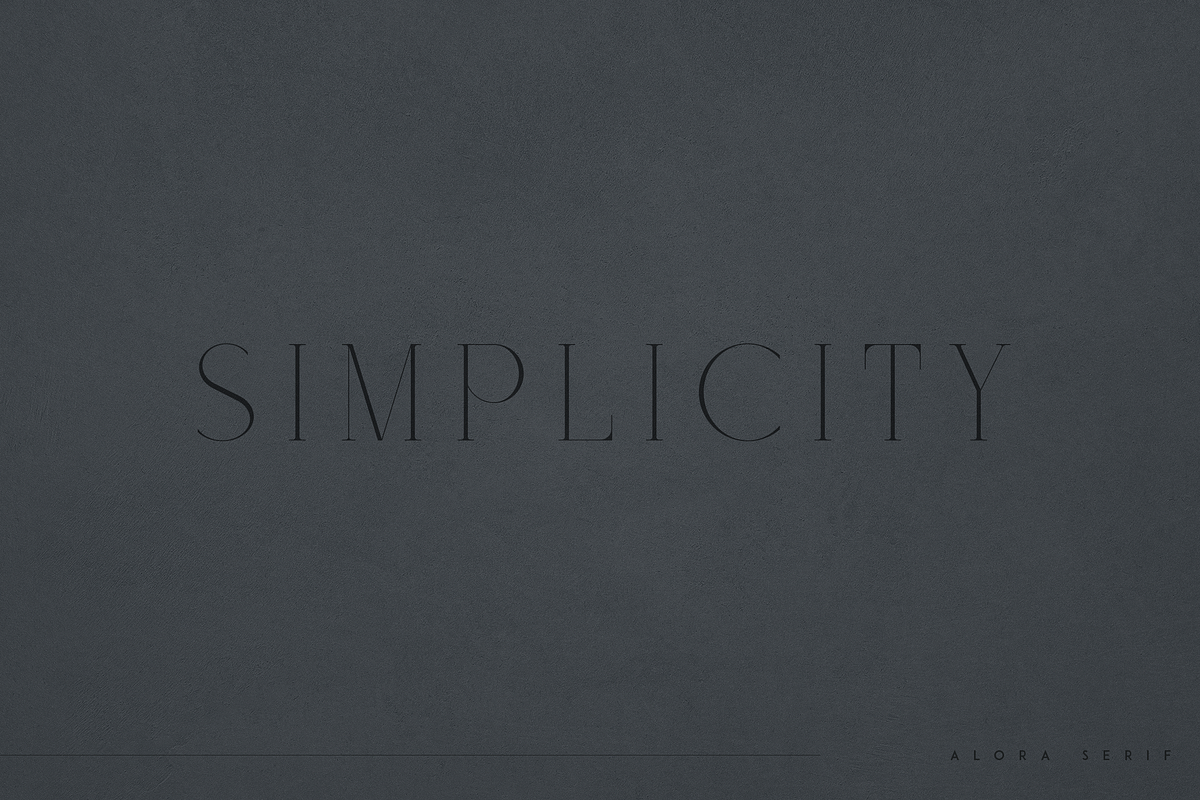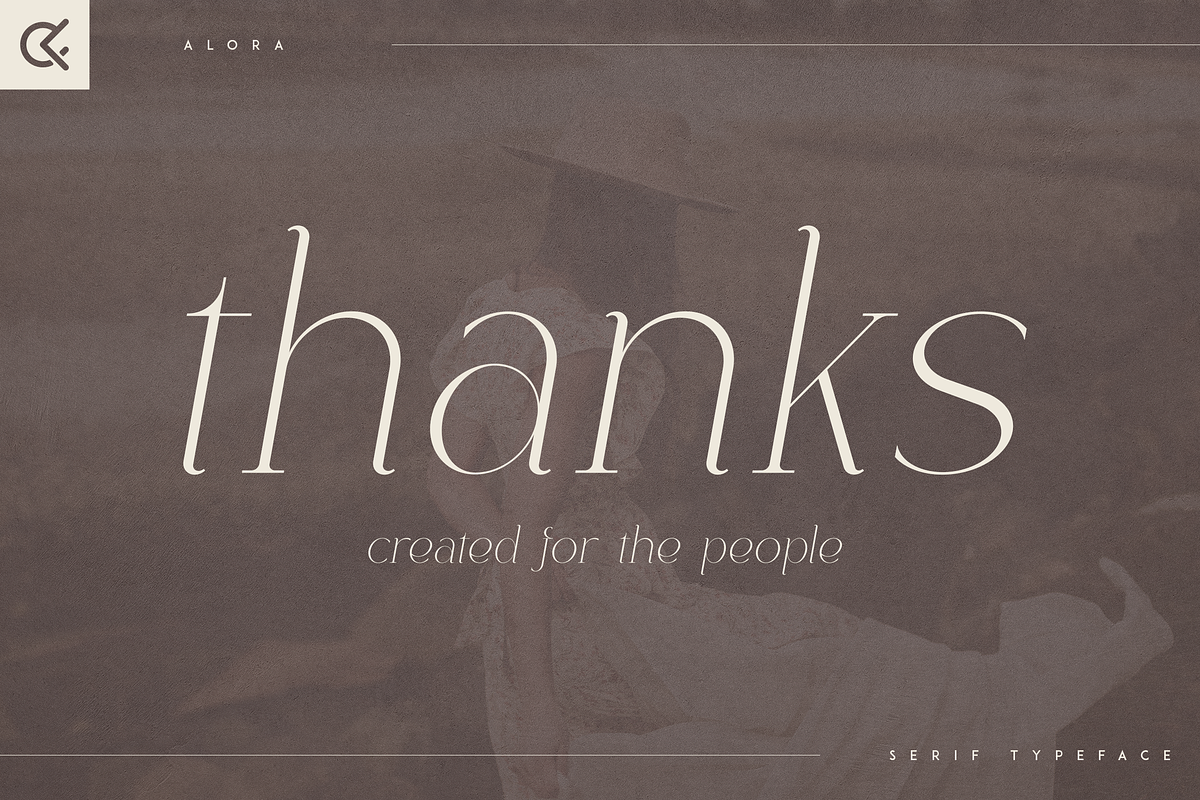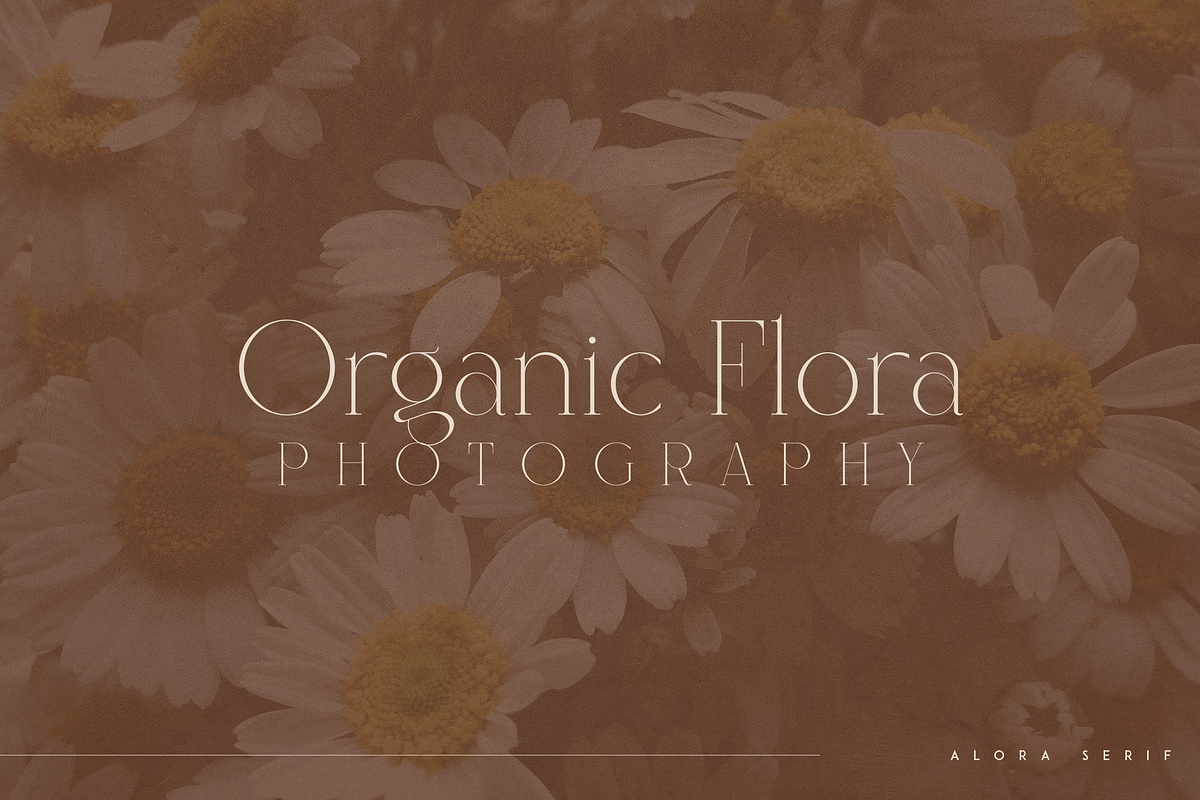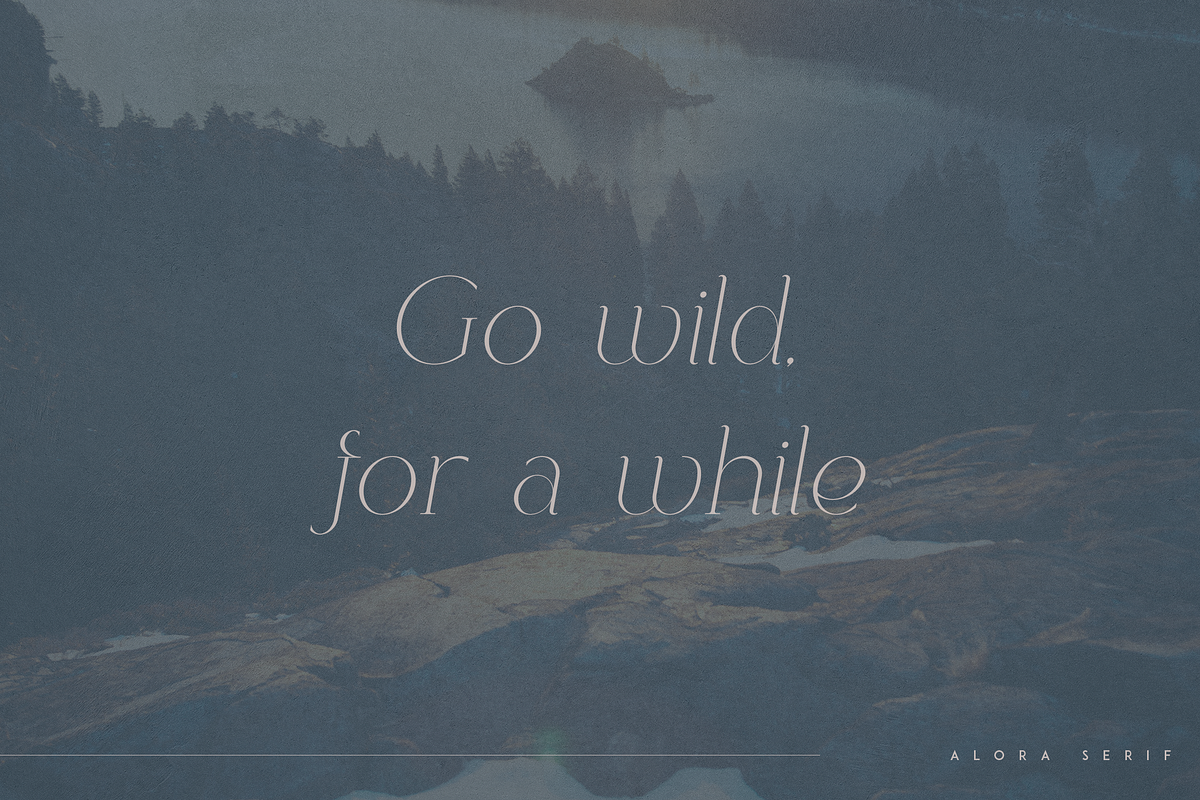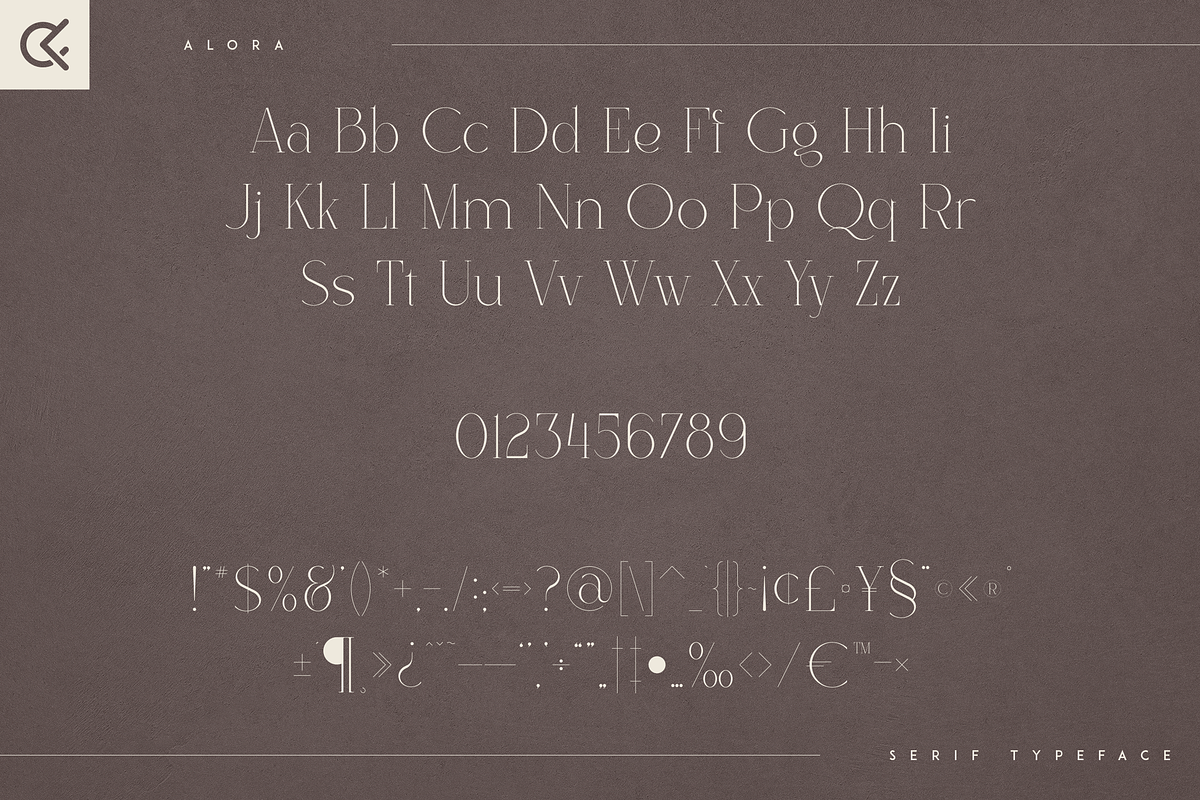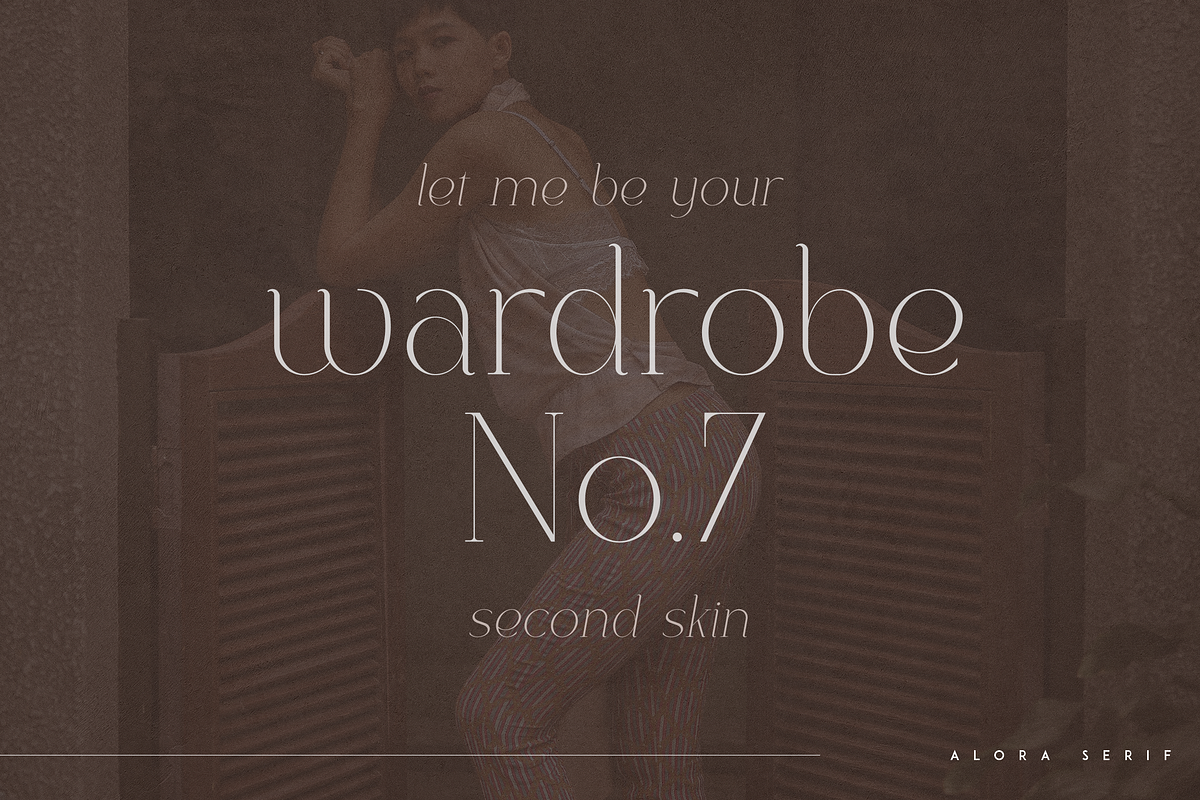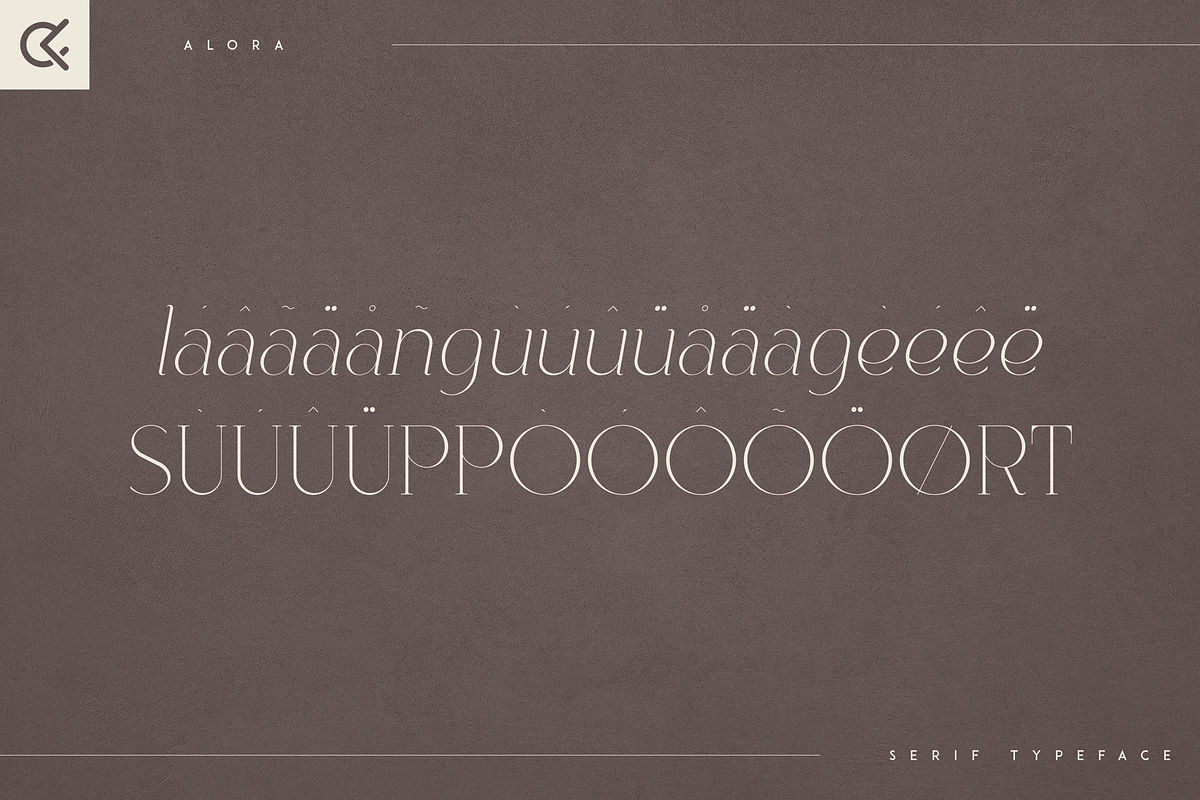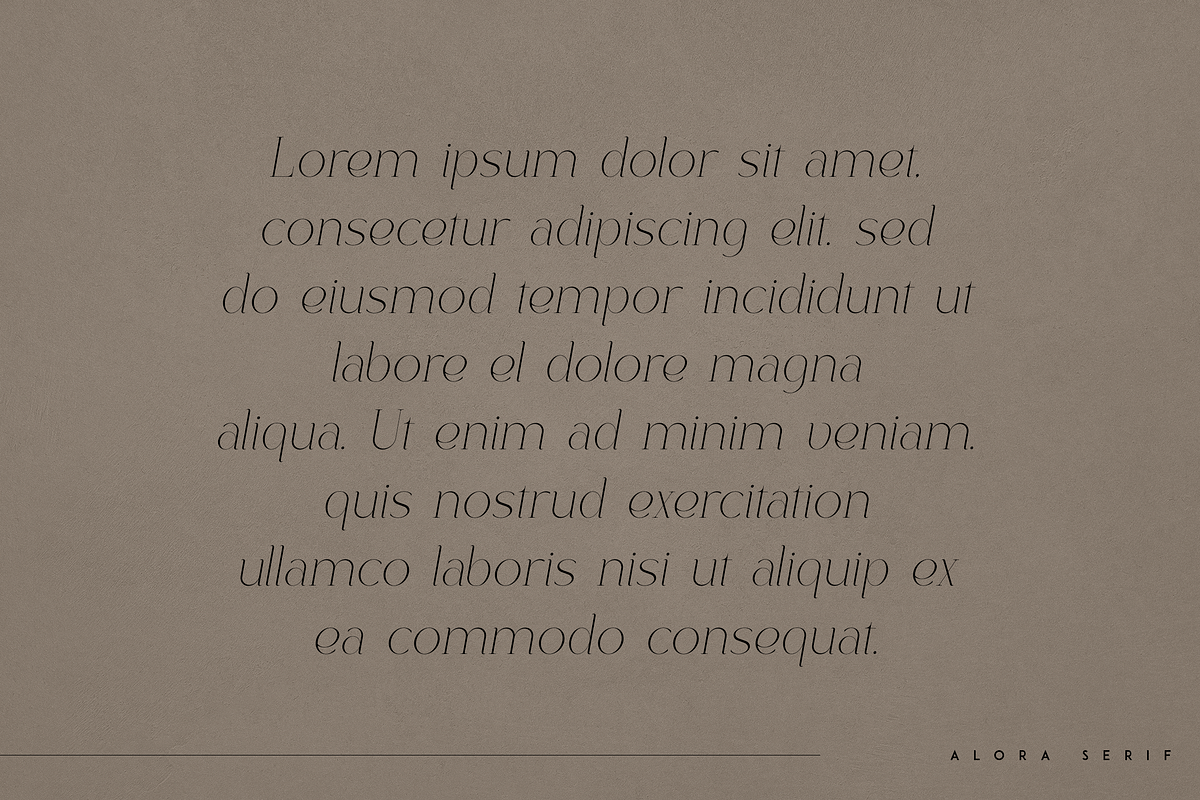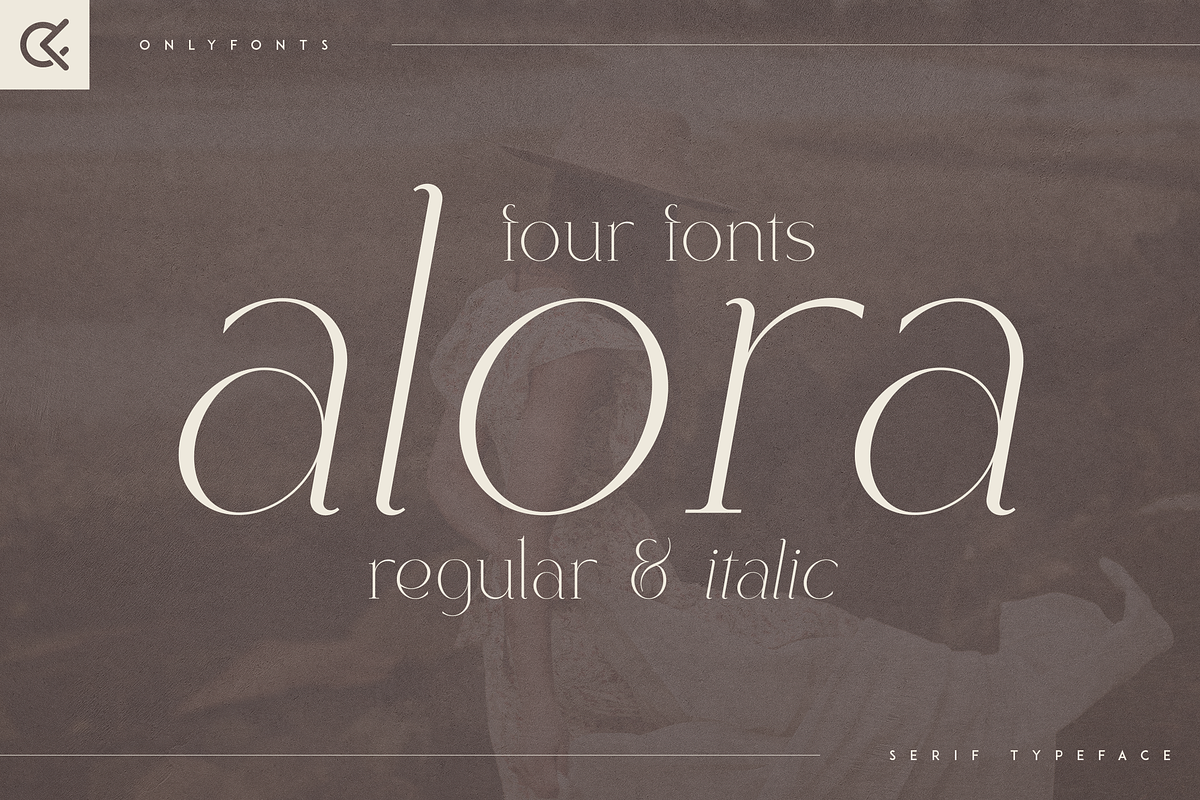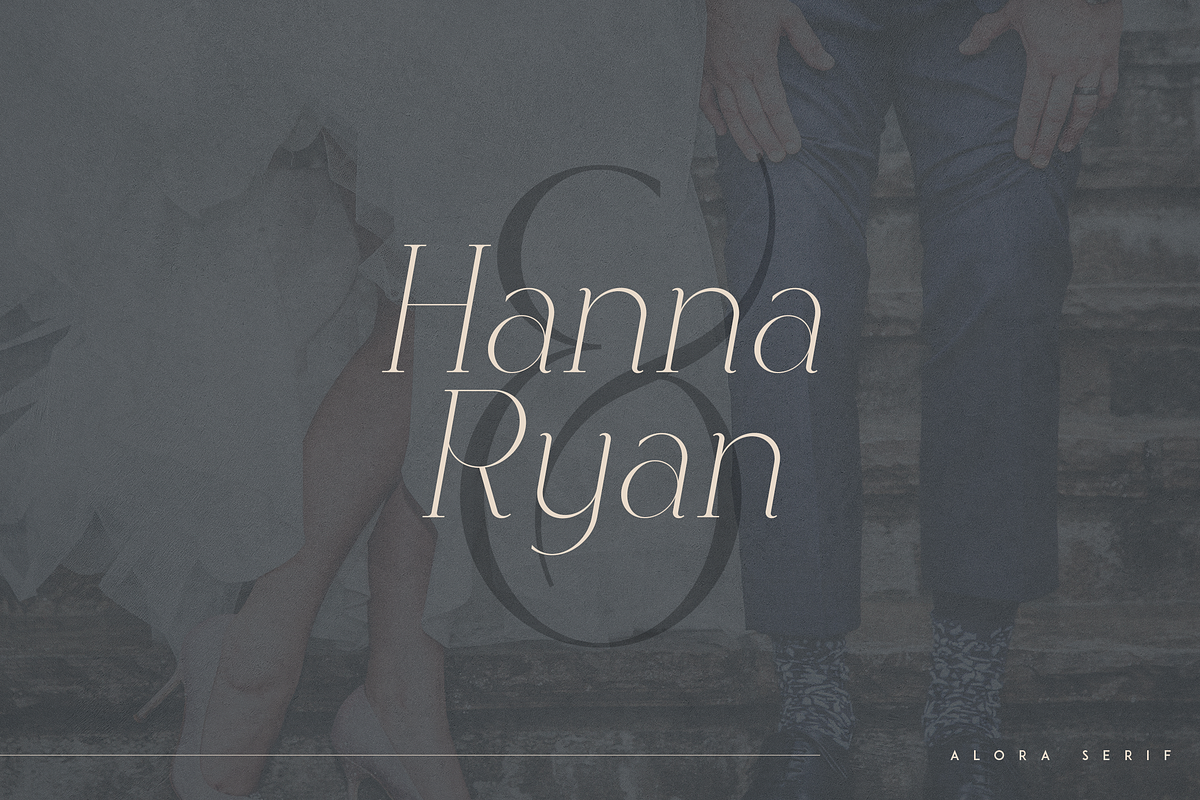
Alora - serif typeface | 4 fonts
Introducing Alora - serif typeface - 4 fonts
Alora is elegant and fragile typeface loaded with 4 fonts and multilingual support. It's a very versatile font that works great in large and small sizes.
Alora is perfect for branding projects, home-ware designs, product packaging, magazine headers - or simply as a stylish text overlay to any background image.
- Uppercase, lowercase, numeral, punctuation & Symbol
- Style 1 and 2
- Italic